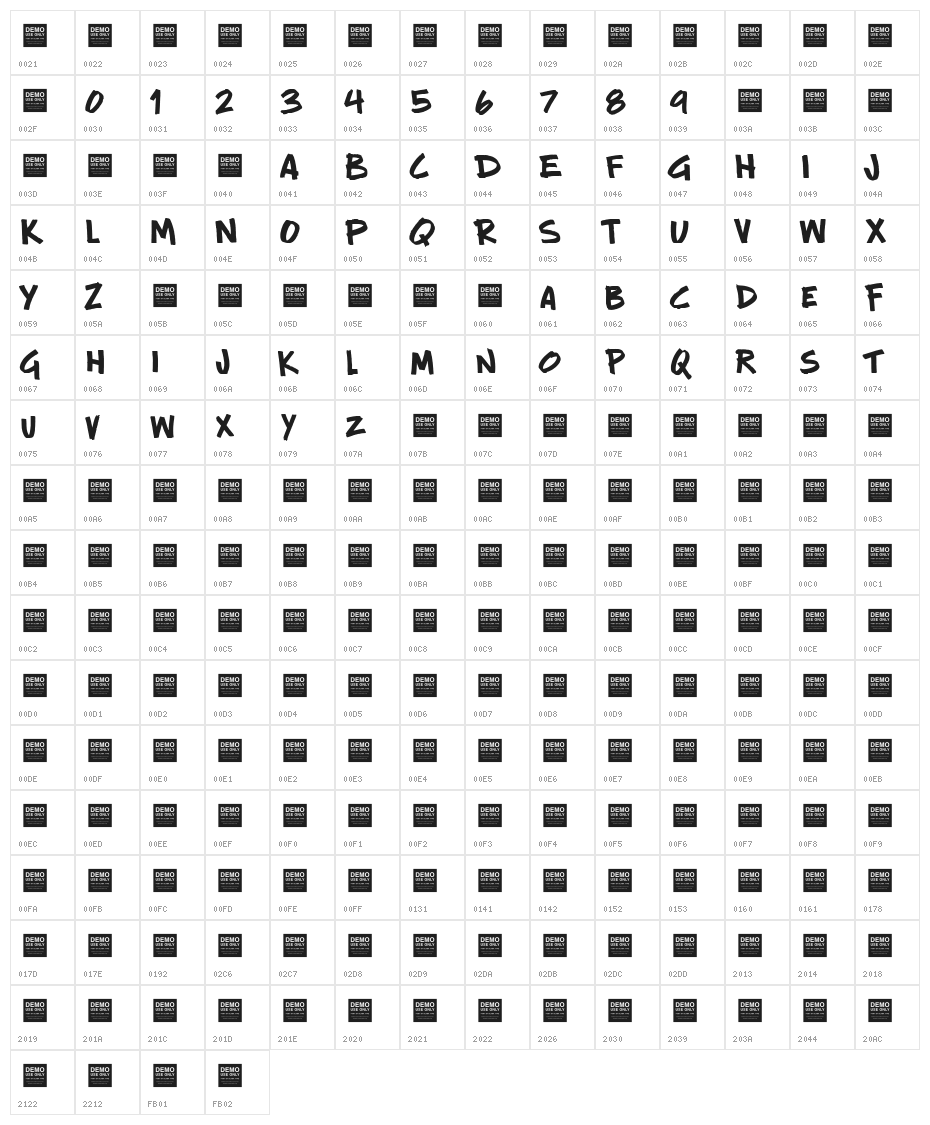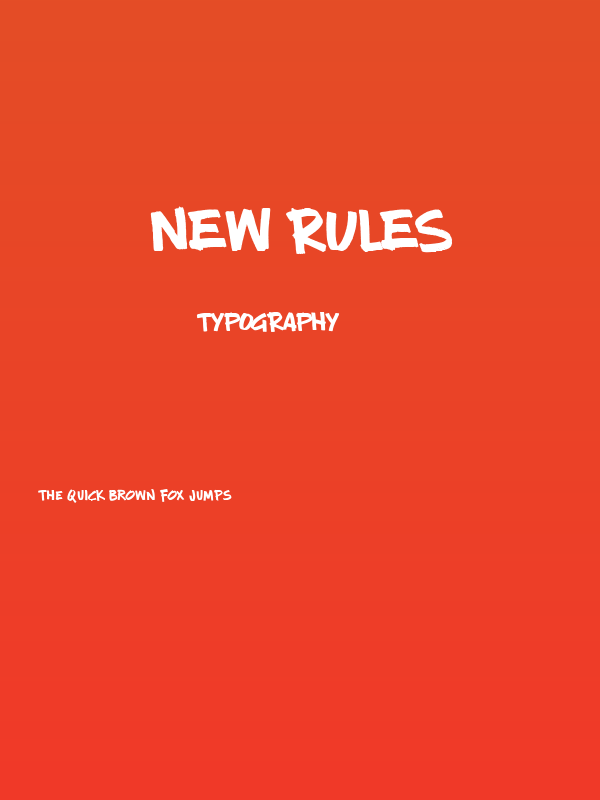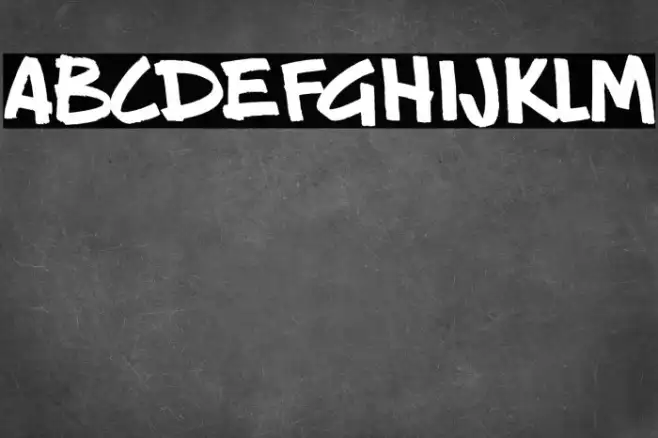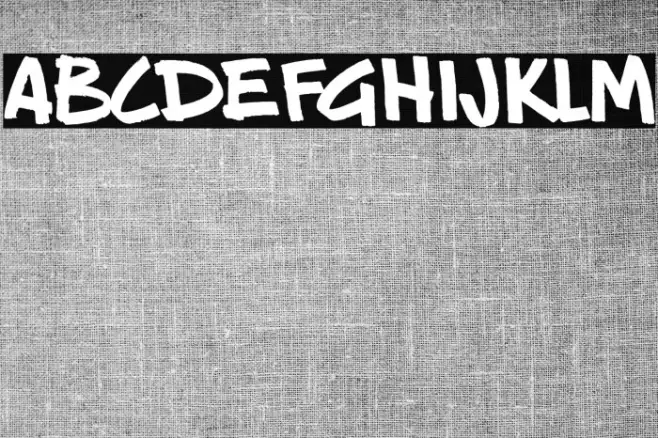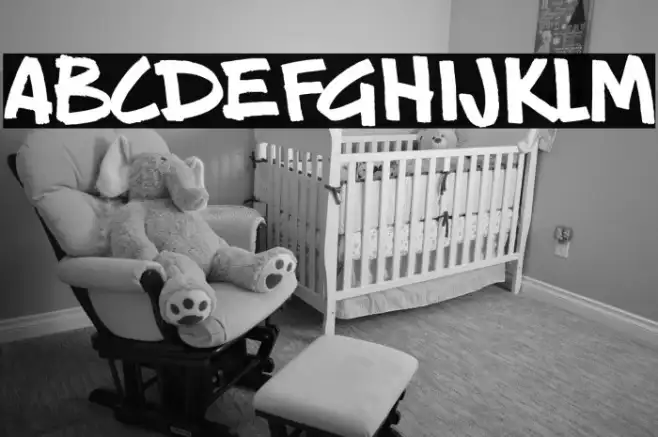
New Rules Font
New Rules Description
This font exhibits a bold and energetic handwritten style, characterized by its thick strokes and dynamic letterforms. The letters have a casual, yet assertive appearance, making them stand out with a sense of movement and personality. The uppercase and lowercase letters maintain a consistent style, with slightly irregular edges that add to the hand-drawn aesthetic. The numbers follow the same bold and lively design, ensuring uniformity across all characters. This font is ideal for projects that require a personal touch or a creative flair, as it conveys a sense of spontaneity and expressiveness.
| Proposed Projects | Ideal for posters, branding, social media graphics, and any project needing a personal, creative touch. |